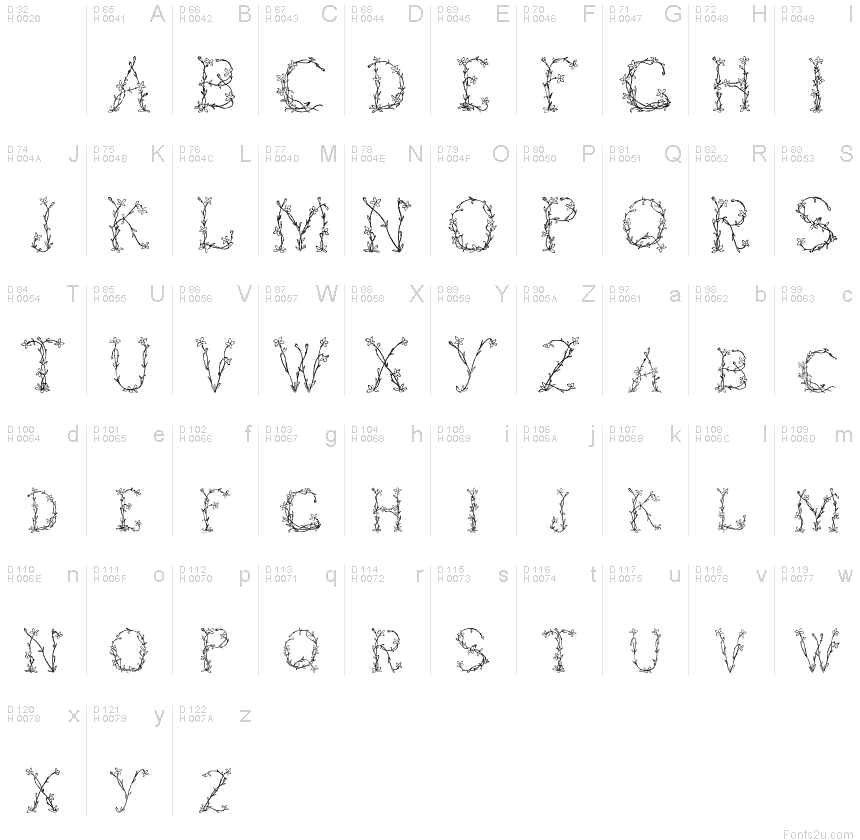
Fleurs de Liane
Fleurs de Liane font by Melle Derieppe Claude is a free decorative display typeface that turns every letter into a curling vine. Each character feels hand-inked, woven from slender stems and tiny blossoms that twist and climb, giving text a wild, romantic texture. The lines stay light and airy, so even with all the floral detail, words still read clearly and feel delicately organic rather than heavy or cluttered.
Using Fleurs de Liane, headlines instantly look like they’ve grown right out of a garden border. This free font works beautifully for wedding invitations, poetry covers, botanical branding, artisan packaging, nature posters, and spring event flyers. Keep it large to show off the petals and leaves, and pair it with a simple serif or clean sans serif for body text so the decorative vines can really breathe.